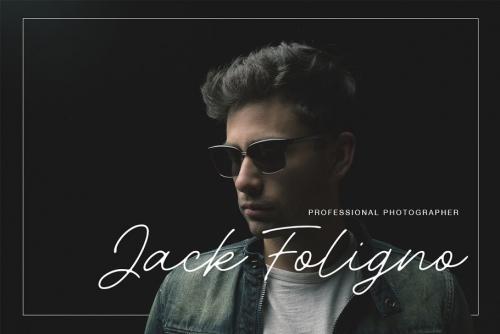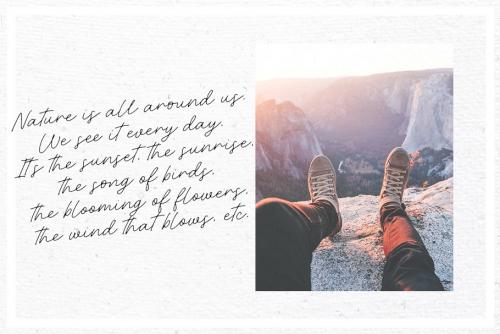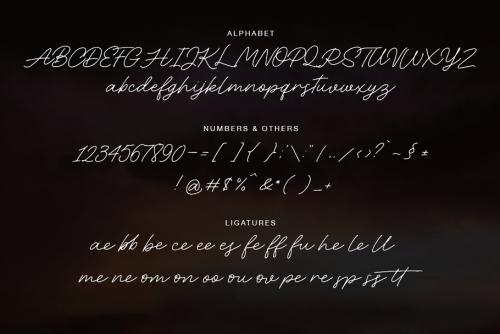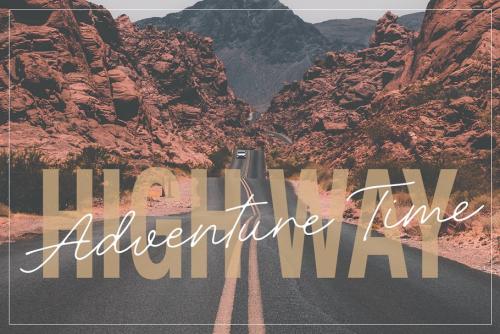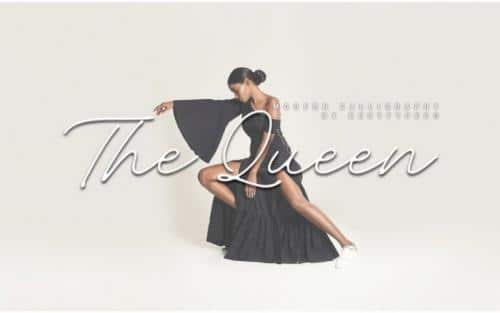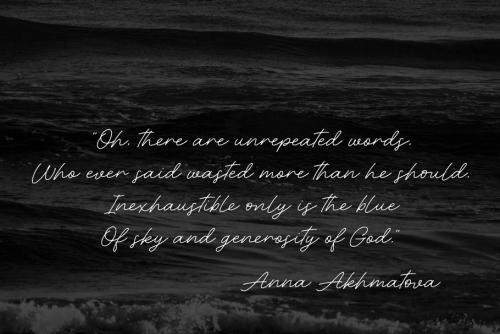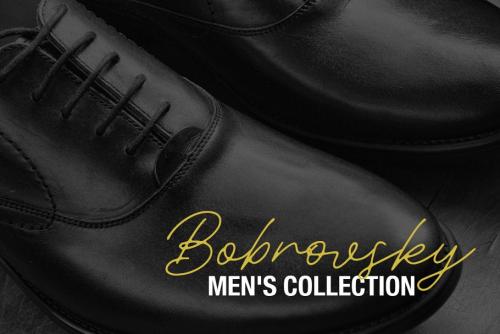
The Queen– a new fresh handmade calligraphy font. Very suitable for greeting cards, branding materials, business cards, quotes, posters, and more!
This font are perfect for wedding postcard. Or you can create perfect and unique design of your logo, blog, stationery, marketing, magazines and more 🙂